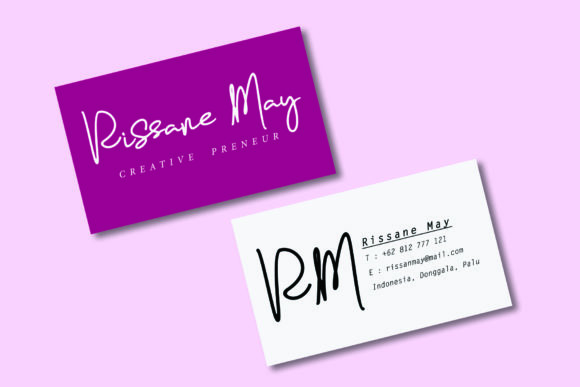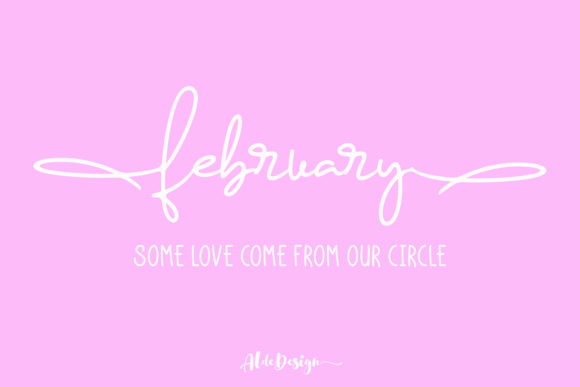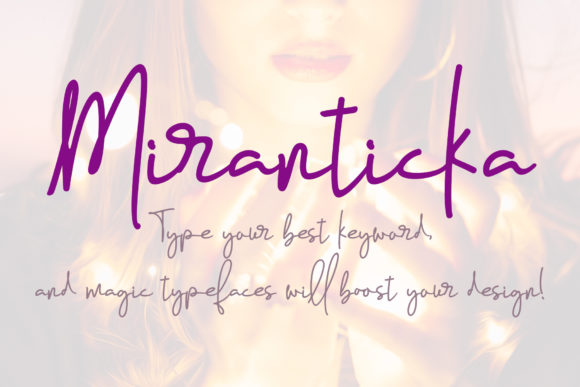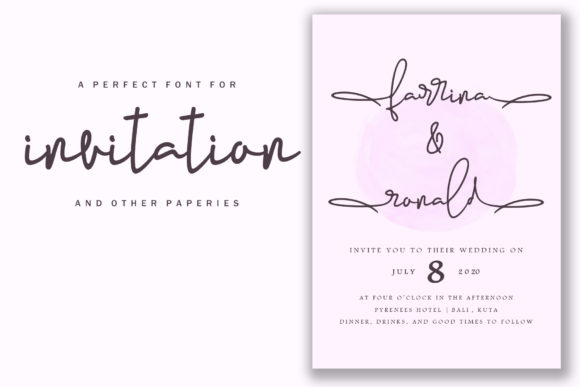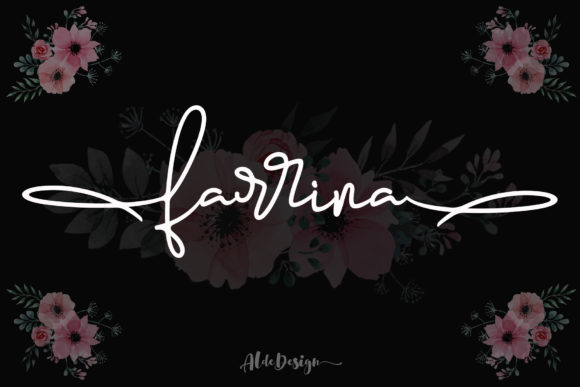
Farrina Font
About Farrina Font
Just imagine that your customers are women. They love to see something beautiful, elegant, and warm, right? You don’t need to get confused to find an interesting font to attract their attention, the Farrina is the right choice! It looks simple without losing its elegance and warmness. The function of the font is to show that you have a modern spirit to serve high-quality products and services.